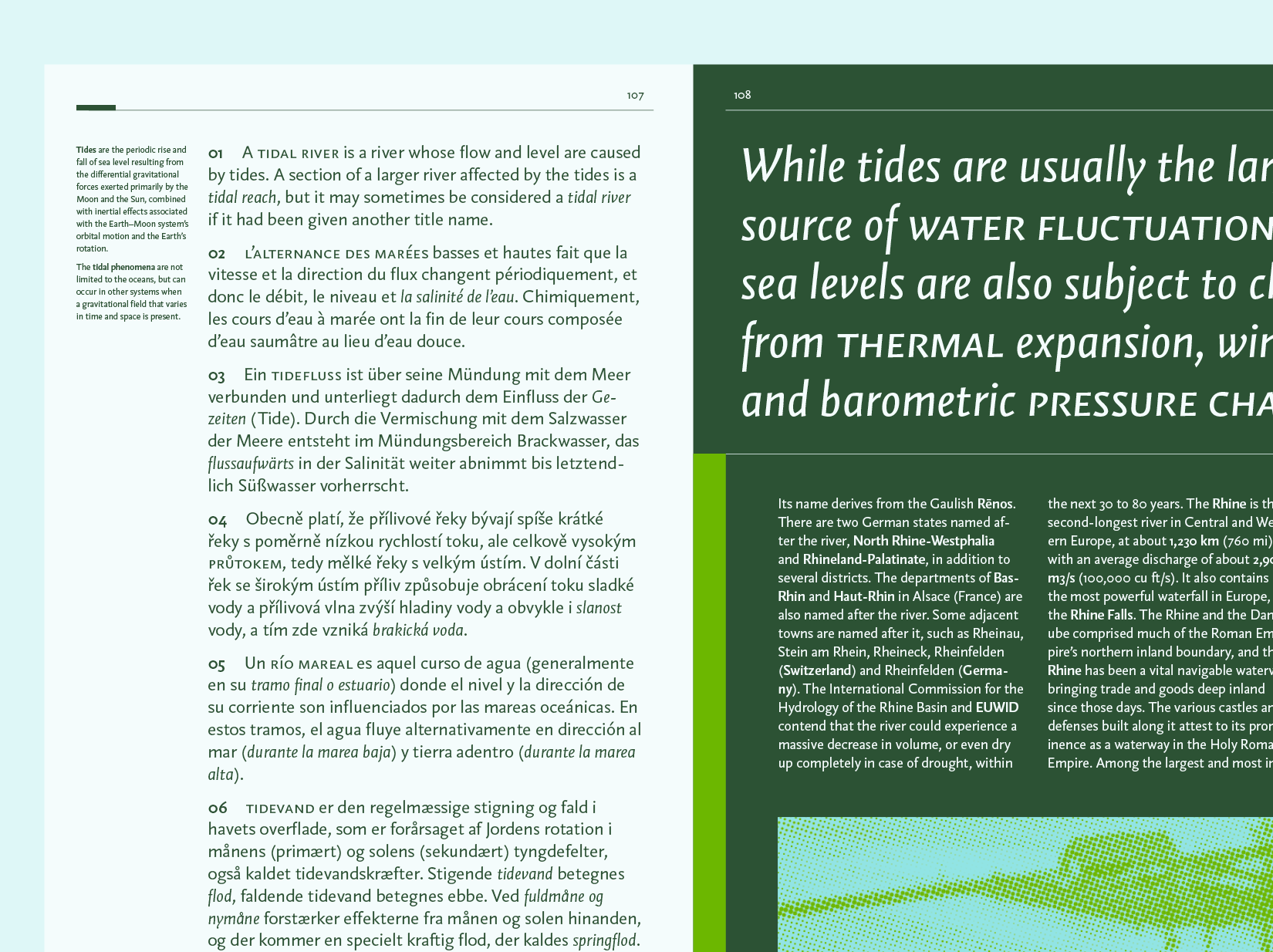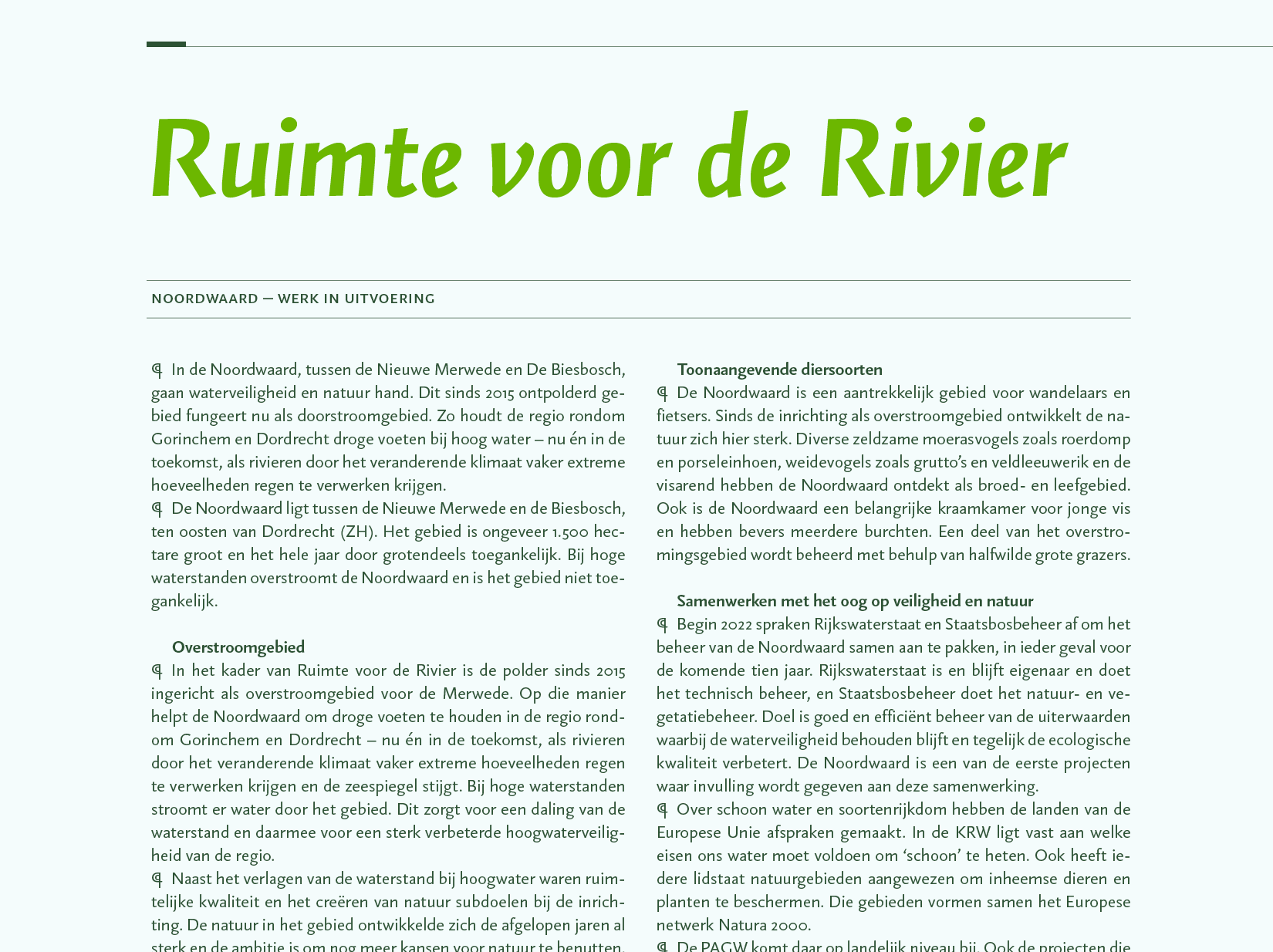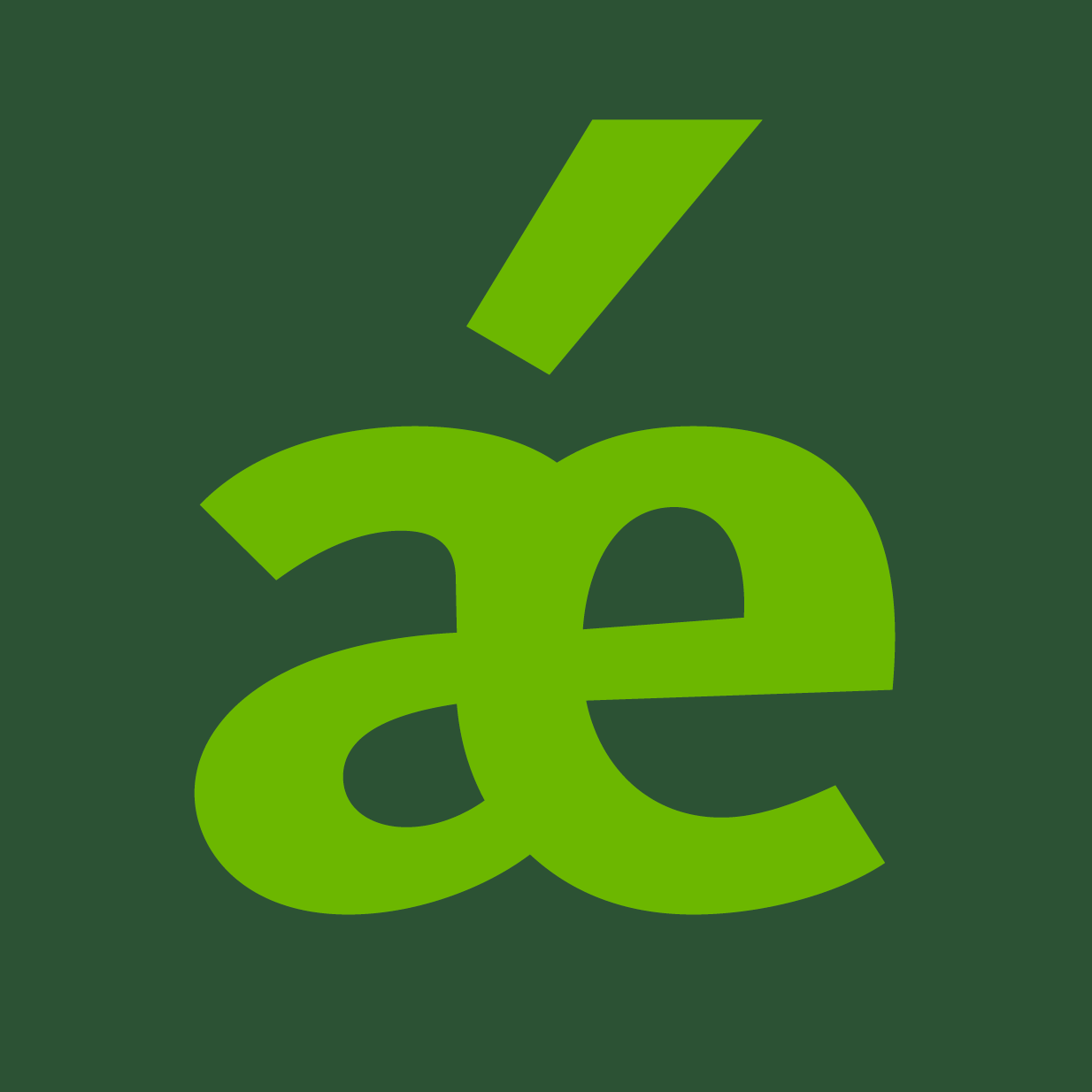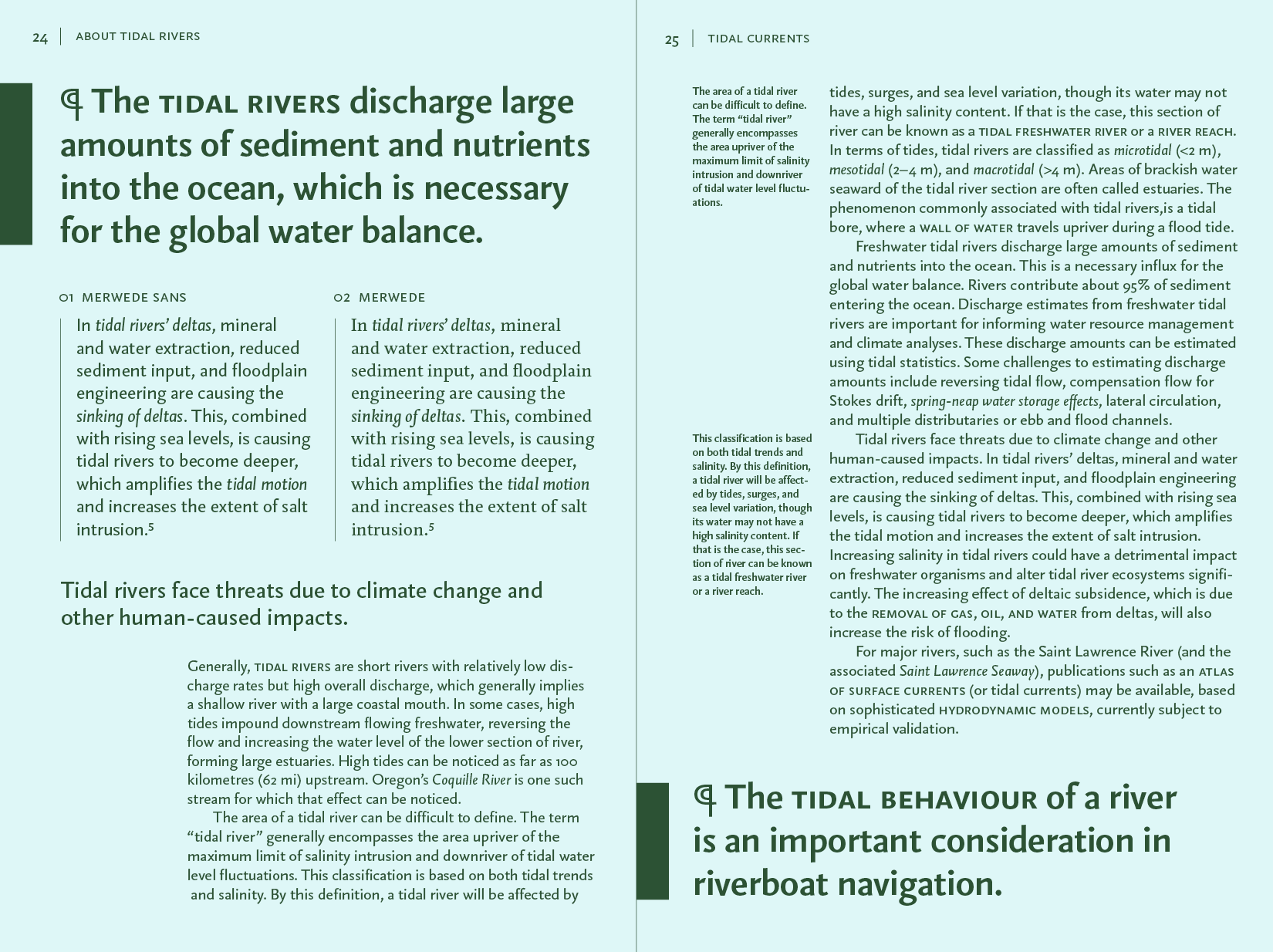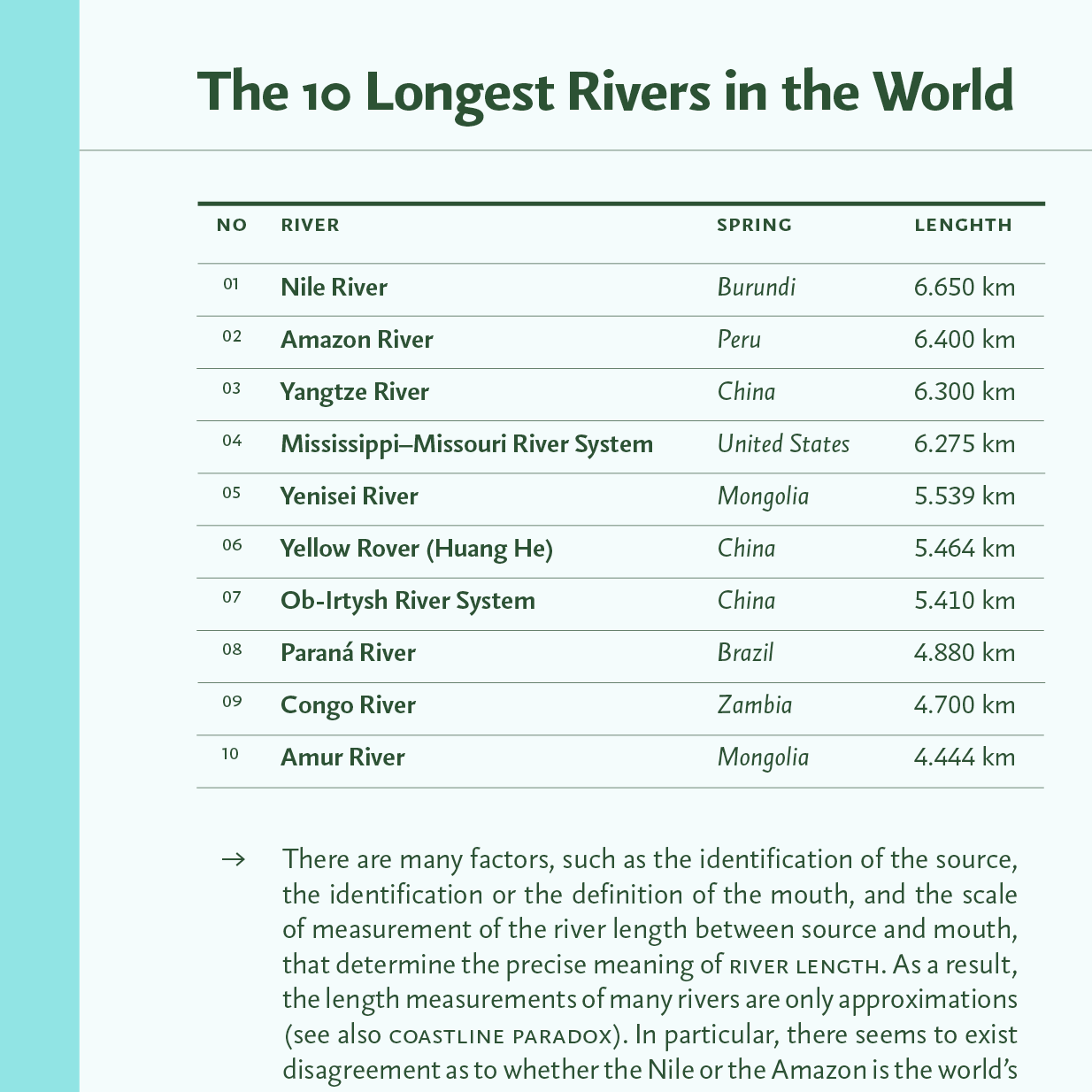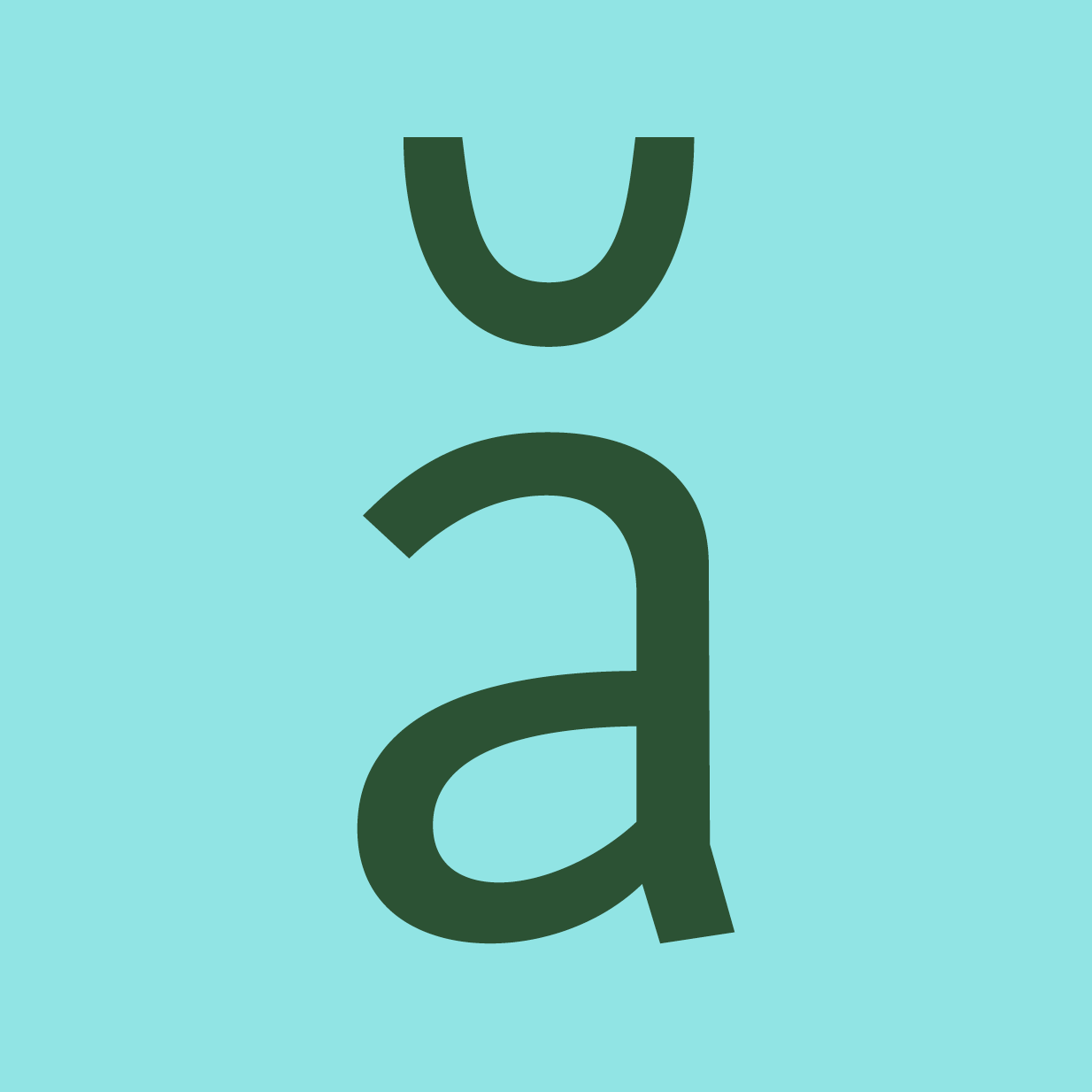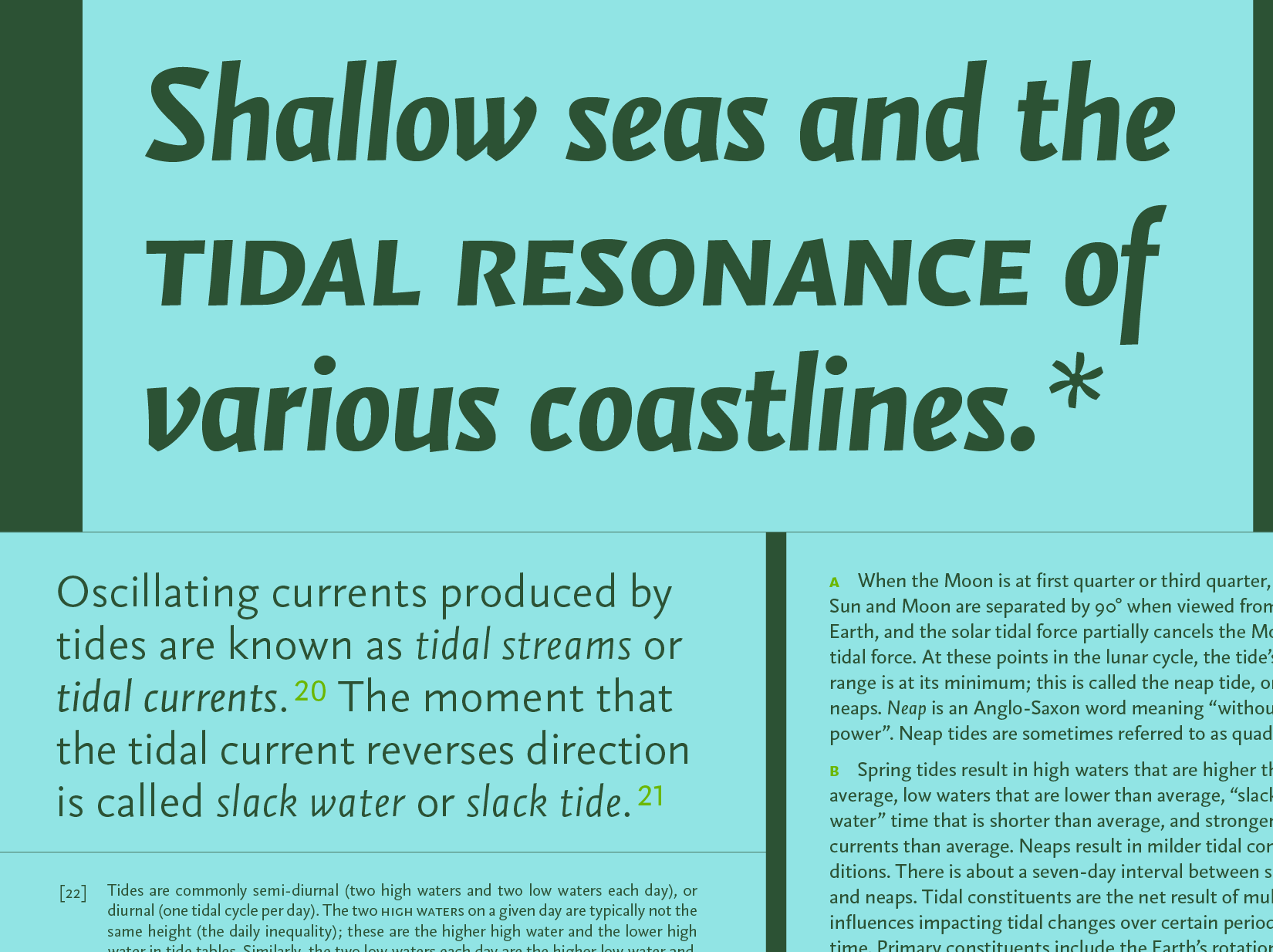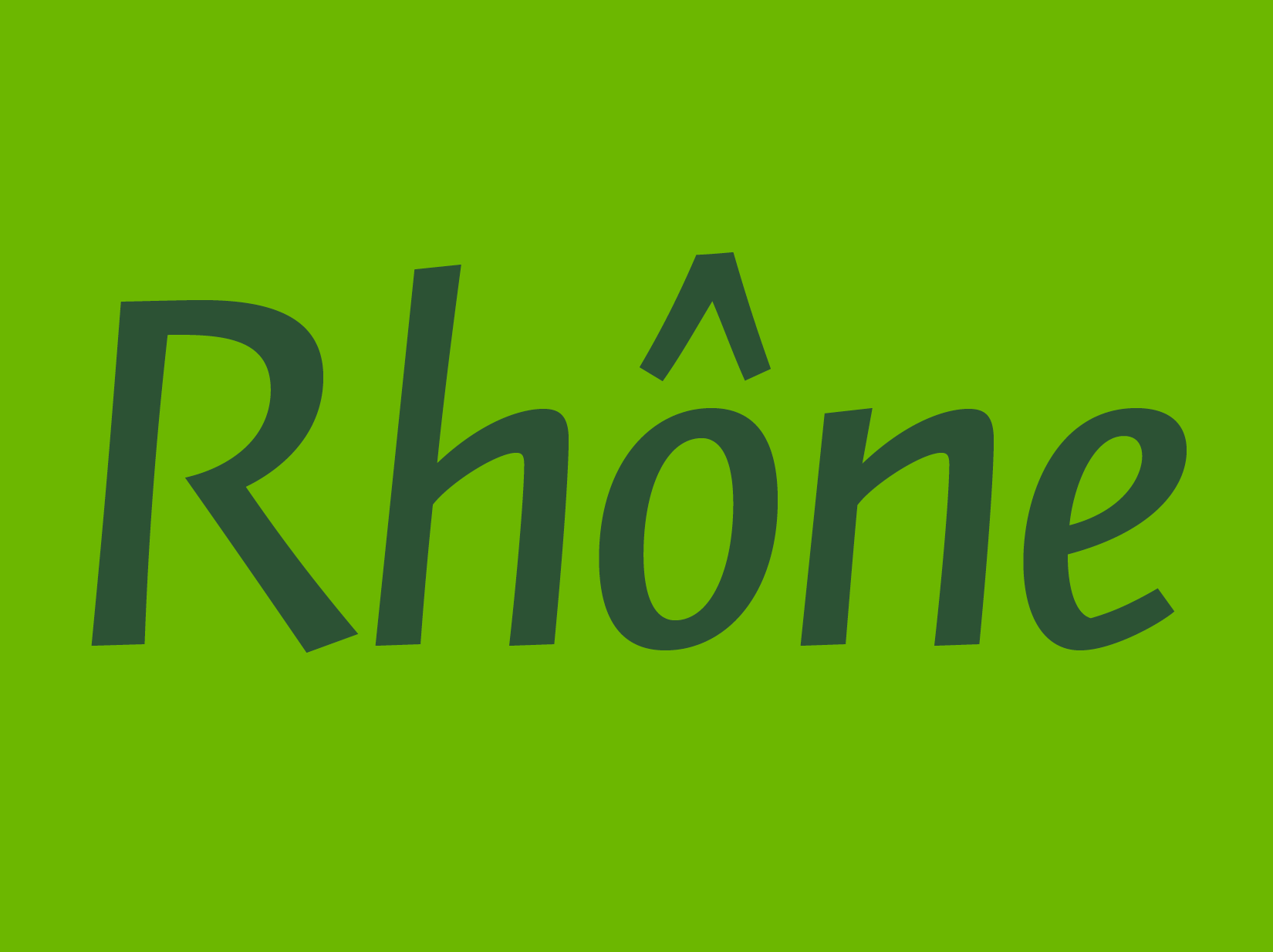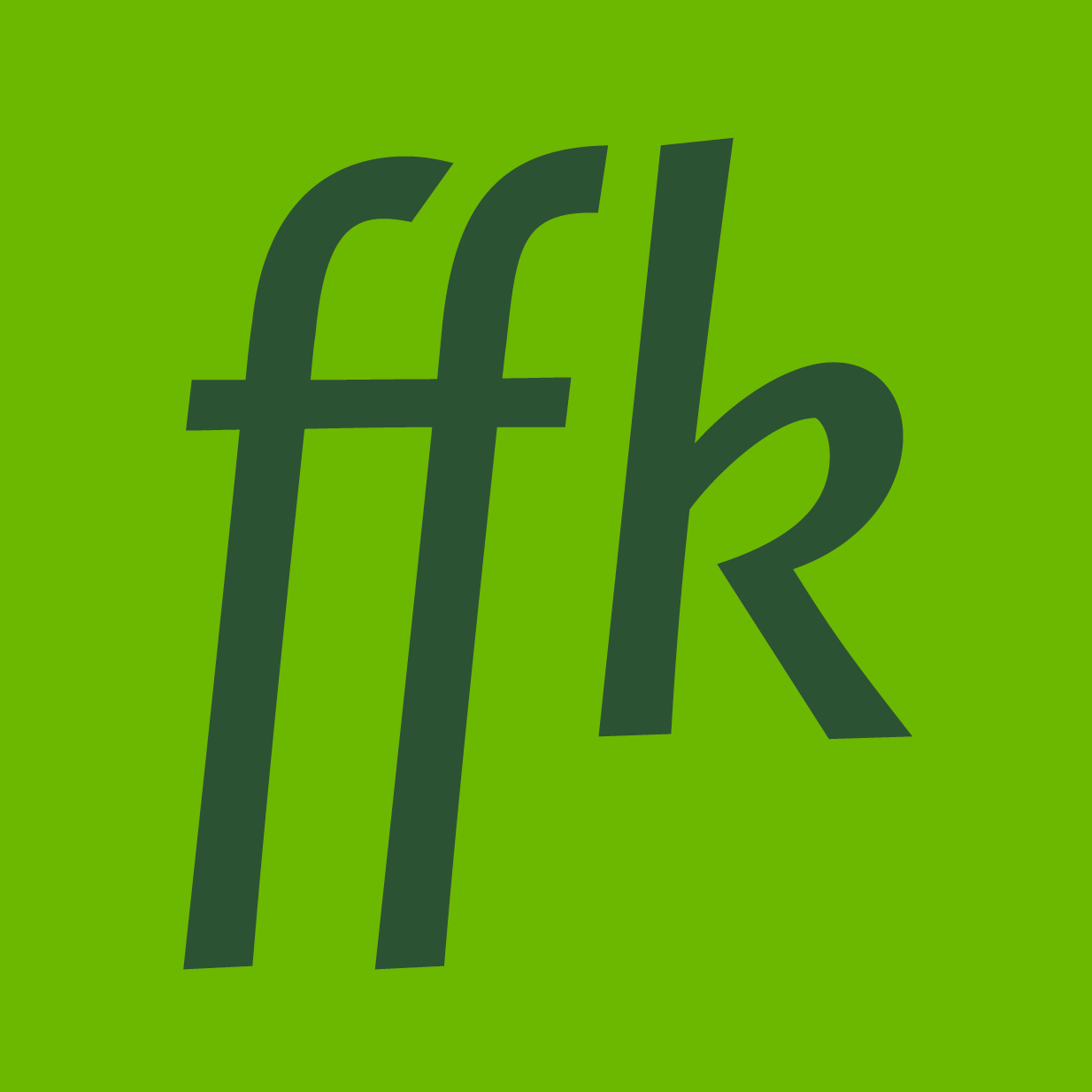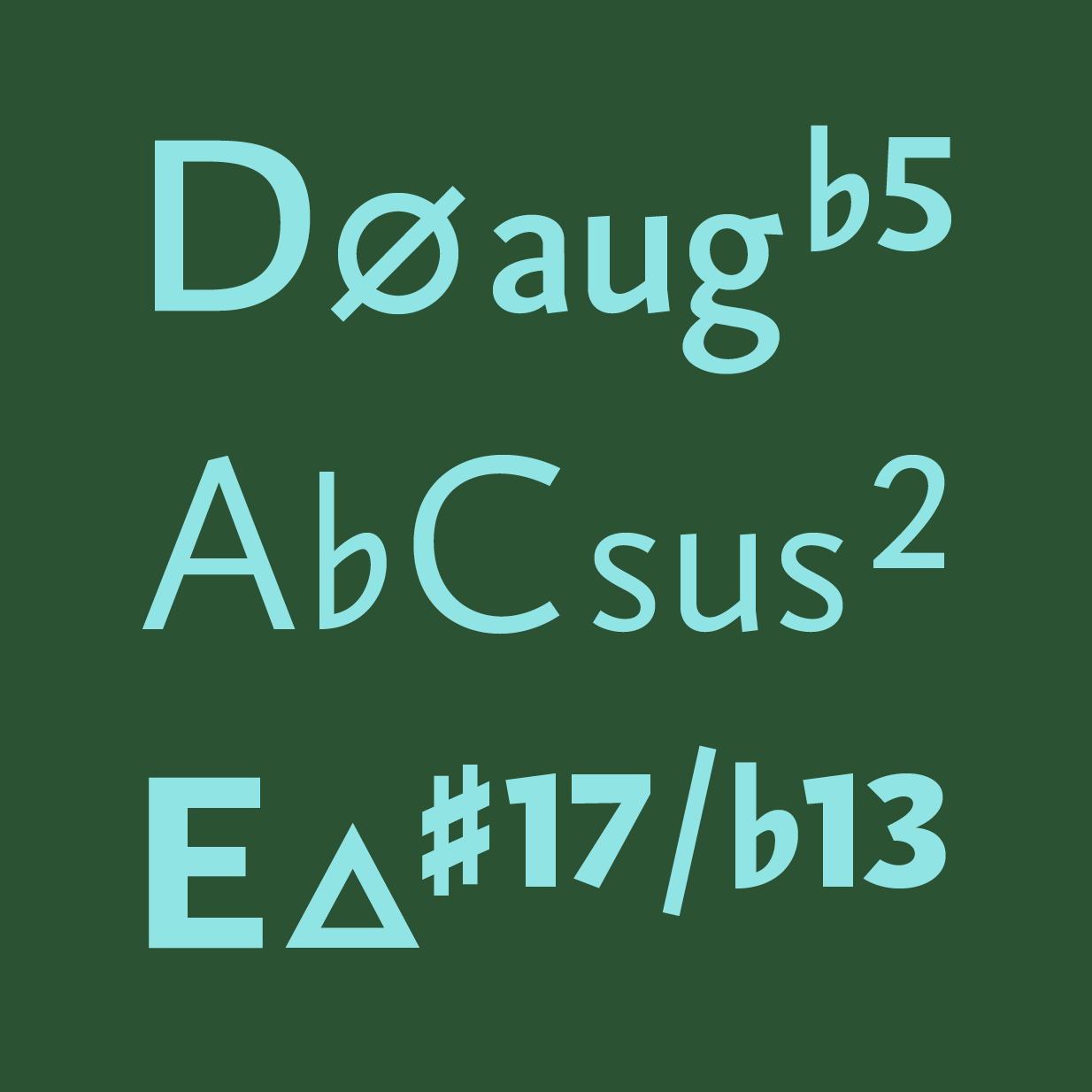
Merwede Sans is a continuation of the thorough and thoughtful design ideas Titus Schulz incorporated into Merwede
, a family especially designed for elegant book typography and musical notation.
While the humanist sans can be used in its own right or in combination with other typefaces, it shares many characteristics with its serif sibling, including proportions, shapes, and the distinctive structure of true italics. The italic capitals are one degree less sloped than the lowercase so they don’t appear to lean against them. Light and Extra Bold, which are two additional weights in comparison to Merwede, make it a versatile set for distinguished text typography. Merwede Sans Firm is slightly heavier than Merwede Sans Regular and shines where either a more pithy impression is needed or a fine granularity between weights, like in reversed-out text. All weights share the same set-width, so they won’t cause any reflow of text when the weights are changed.
An extensive set of OpenType features rounds out the character-set: ligatures, various sets of numerals, arrows, and — less commonly included in text typefaces — musical chord symbols.